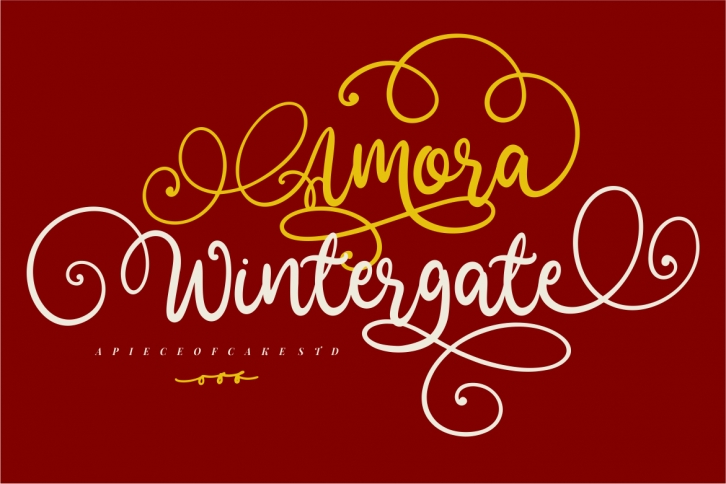
Amora Wintergate is a stylish and delicate handwritten and dingbats font with a wide spectrum of applications. From greeting cards to headlines, this beautiful font is guaranteed to give a romantic feel to your next project.